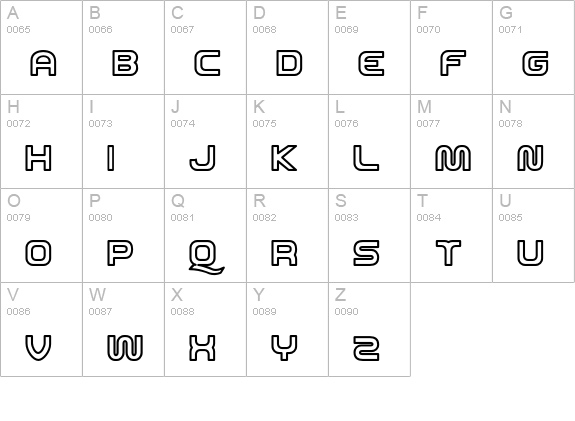
The RolandTR707 font captures the essence of retro technology and brings it into the digital age with a modern twist. Its sleek and futuristic design pays homage to the iconic Roland TR-707 drum machine, evoking a sense of nostalgia for electronic music enthusiasts. The geometric shapes and clean lines of this font exude a sense of precision and sophistication, making it perfect for a wide range of design projects. Best of all, the RolandTR707 font is available for free download at FontsMarket.com. This means you can easily access and use this stylish font in your own projects without any cost. Whether you're creating posters, album covers, or social media graphics, the RolandTR707 font is sure to make a bold statement and elevate your designs to the next level. Download this font today and add a touch of retro flair to your creations.